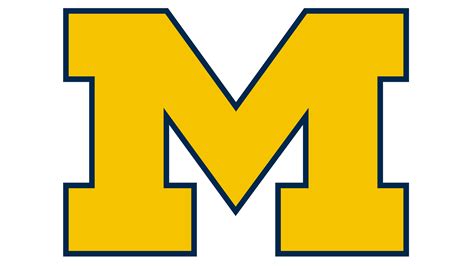
Uncovering The Iconic Michigan Wolverines Font
Uncovering the Iconic Michigan Wolverines Font
Hey guys, have you ever looked at the iconic maize and blue of the Michigan Wolverines and wondered, “What font is used for Michigan Wolverines’ branding?” It’s a question many fans and design enthusiasts ponder, and for good reason! The typography used by a sports team isn’t just a random choice; it’s a fundamental part of their brand identity, conveying power, tradition, and spirit. For the Wolverines, their typeface is as recognizable as the block ’M’ itself, playing a crucial role in shaping how we perceive this legendary institution. In this deep dive, we’re going to explore the fonts that define the Michigan Wolverines, from their primary wordmarks to the supporting typefaces that complete their visual story. We’ll chat about why these specific choices matter, how they contribute to the team’s enduring legacy, and even give you some tips on how to capture that undeniable Wolverine spirit in your own designs. So, grab your favorite maize and blue gear, and let’s uncover the secrets behind the iconic Michigan Wolverines font together!
Every time you see that bold, strong text associated with the University of Michigan, whether it’s on a jersey, a stadium banner, or their official website, you’re experiencing the deliberate power of typography. This isn’t just about reading words; it’s about feeling the weight of tradition, the strength of their athletic prowess, and the unwavering loyalty of their fan base. The Michigan Wolverines font system is meticulously crafted to evoke these very emotions. It’s a visual language that speaks volumes about the team’s identity, an identity steeped in history and success. We’re talking about more than just letters here; we’re talking about a significant piece of their visual heritage. So, let’s embark on this exciting journey to unravel the typographic tapestry that makes the Wolverines’ brand so distinctive and instantly recognizable. You’ll soon realize that understanding their font choices gives you a whole new appreciation for the effort that goes into creating such a powerful and cohesive brand identity, an identity that resonates deeply with millions of fans worldwide . This journey into their typography isn’t just for designers; it’s for anyone who loves the Wolverines and wants to understand the subtle yet profound elements that make their brand truly legendary. We’re going to break down the primary wordmarks, the secondary text, and even some clever alternatives you can use to capture that unmistakable Michigan vibe in your own personal projects. It’s all about celebrating the visual legacy that stands as tall and proud as the university itself.
The Core Identity: What Font Defines the Wolverines?
When we talk about the Michigan Wolverines font , we’re primarily referring to the highly distinctive typography used in their official wordmarks and the iconic block ’M’ logo. While many major collegiate and professional sports teams often utilize custom-designed typefaces for their primary branding – fonts that are exclusive to them and not readily available commercially – the Wolverines’ visual identity certainly gives us a clear style to analyze. The hallmark of the Wolverines’ primary typeface is its strong, blocky, and athletic appearance. This isn’t just any font; it’s a typeface that screams power, tradition, and unyielding determination, perfectly encapsulating the spirit of a Wolverine athlete. Think about the iconic football jerseys, the scoreboards at “The Big House,” or the university’s official merchandise; the font used for “MICHIGAN” and “WOLVERINES” is instantly recognizable, leaving a lasting impression on everyone who sees it. It embodies a sense of enduring strength and classic American collegiate aesthetics, a design philosophy that has been refined over many decades to represent excellence and heritage.
Often, the type of font employed for the primary wordmark is a heavy sans-serif or a bold slab-serif , characterized by its robust letterforms and a no-nonsense, straightforward design. These fonts are chosen for their exceptional readability, especially from a distance, which is crucial for stadium signage, television broadcasts, and quickly glimpsed merchandise. They project an aura of authority and reliability, qualities that are deeply embedded in the Michigan Wolverines’ athletic and academic reputation. The specific customization of these letterforms is what truly makes them unique to the Wolverines. You’ll notice subtle alterations in spacing, stroke width, and corner angles that give the letters a distinctive feel, distinguishing them from generic collegiate typefaces. This attention to detail ensures that their branding is not only strong but also unmistakably Michigan . The design principles behind this choice are rooted in a desire to convey tradition, athleticism, and a timeless quality. The font avoids frivolous adornments, focusing instead on clarity and impact, much like the disciplined approach of a Wolverines team on the field. It’s about projecting unwavering strength and a sense of history that few other institutions can match. This specific aesthetic has become synonymous with the University of Michigan, fostering a deep sense of pride and loyalty among its alumni and fan base. It’s more than just a font; it’s a visual anchor that connects past glories with future aspirations, truly defining what it means to be a Michigan Wolverine. The carefully crafted curves and strong lines of the official Michigan Wolverines font communicate a consistent message of excellence and steadfastness, creating a visual legacy that stands the test of time and continues to inspire generations of fans. This thoughtful design ensures that every piece of branding, from a helmet decal to a massive stadium graphic, powerfully reinforces the university’s esteemed image and its storied history in collegiate sports. It’s truly a masterclass in athletic branding, establishing a clear, strong, and enduring visual identity.
Beyond the Wordmark: Supporting Typefaces and Their Role
While the primary Michigan Wolverines font for their core wordmarks is undeniably the star of the show, it’s essential to remember that a comprehensive brand identity relies on a cohesive system of supporting typefaces. These additional fonts, guys, are vital for various applications, ranging from the university’s official website and marketing materials to program guides and everyday communications. They play a critical role in ensuring readability, maintaining brand consistency across different platforms, and complementing the boldness of the main athletic font without overshadowing it. Think about it: you wouldn’t want a super heavy, custom block font used for every single paragraph of text on a website, right? That would be a nightmare to read! Instead, these supporting typefaces are typically more conventional, highly legible fonts chosen for their versatility and ability to work harmoniously with the strong primary branding. They provide the necessary balance, allowing the iconic Wolverines’ look to shine while ensuring all other information is presented clearly and professionally.
For general body text and secondary headlines, the University of Michigan system often employs widely accessible and highly readable sans-serif fonts. Common choices in such branding guidelines might include industry standards like Roboto, Open Sans, Arial, or Helvetica . These fonts are preferred because of their clean lines, consistent spacing, and excellent readability across various screen sizes and print media. They offer a neutral yet professional aesthetic that supports the vibrant maize and blue branding without competing for attention. Imagine reading a news article about the Wolverines on their official site; the body text needs to be clear and unobtrusive, allowing you to focus on the content rather than struggling with an overly stylized font. These secondary fonts also extend to specific applications like player names on jerseys (though often a simplified version of the primary athletic font might be used for numbers and names), signage within campus facilities, and even detailed informational graphics. The careful selection of these complementary fonts ensures that every piece of communication, regardless of its purpose, feels authentically Michigan. They bridge the gap between the bold, impactful athletic identity and the academic, informational needs of a major university. This multi-layered approach to typography is a hallmark of sophisticated brand management, ensuring that the visual language of the Wolverines is both powerful and practical, creating a seamless experience for fans, students, and alumni alike. It’s all about making sure that the entire visual ecosystem works together, reinforcing the overarching brand message. The harmony between the Michigan Wolverines font (the bold, primary one) and these supporting typefaces is what truly elevates their brand, making it robust, adaptable, and instantly recognizable across countless touchpoints, from digital screens to print publications, always maintaining that distinctive maize and blue spirit that everyone loves and expects.
The Power of Typography in Sports Branding
Let’s get real, guys, typography isn’t just about making words look pretty; it’s a powerful, silent communicator that shapes perceptions and evokes emotions, especially in the high-stakes world of sports branding. For teams like the Michigan Wolverines, their font choices are incredibly strategic, serving as a cornerstone of their overall brand identity. The primary Michigan Wolverines font isn’t just letters; it’s a visual metaphor for the team’s values, history, and aspirations. When you see that bold, unwavering typeface, it instantly conjures feelings of strength, tradition, and excellence. This emotional connection is priceless in branding, fostering a deep sense of loyalty and pride among fans. A well-chosen typeface can scream “champions” or whisper “underdogs,” depending on the team’s narrative and desired image. For the Wolverines, it shouts legacy and unyielding spirit . Think about how different a team would feel if their logo was in a delicate script versus a heavy, collegiate block font; the entire perception shifts, right?
Typography contributes immensely to brand recognition . Just like the iconic maize and blue colors, the distinctive Michigan Wolverines font makes their brand instantly identifiable, even without seeing a logo or a mascot. This consistency across all touchpoints – jerseys, merchandise, stadium graphics, digital platforms – builds a strong, unified identity that reinforces the team’s presence and impact. It ensures that whether you’re watching a game, buying a hat, or visiting the university website, the visual experience is cohesive and unmistakably Michigan. This consistency isn’t just about aesthetics; it’s about building trust and familiarity. Fans come to expect that certain look, and it becomes part of their collective memory and emotional connection to the team. Furthermore, the strategic use of typography allows a team to convey specific values. The robust, no-nonsense look of the Wolverines’ primary font communicates discipline, resilience, and a storied history. It reflects the hard work and dedication that are hallmarks of their athletic programs. It speaks to a tradition of success and a commitment to excellence that resonates with generations of fans and alumni. It’s about more than just a font; it’s about a visual representation of their entire ethos. The power of typography in sports also extends to differentiating a team from its rivals. In a crowded landscape of competing universities and athletic programs, a unique and impactful font helps a team stand out. It becomes a signature element that contributes to their unique storytelling and market positioning. Ultimately, the Michigan Wolverines font system isn’t just a design detail; it’s a critical asset that helps forge powerful emotional bonds, ensures instant recognition, communicates core values, and sets the team apart, truly embodying the spirit and tradition of one of college sports’ most revered institutions. It helps to tell their story without uttering a single word, speaking volumes through its strong, proud, and instantly recognizable letterforms that resonate deeply with the vast Wolverine faithful around the globe.
Crafting Your Own Wolverine-Inspired Designs: Font Alternatives & Tips
Alright, folks, if you’re a designer, a student, or just a passionate fan looking to infuse that unmistakable Wolverines spirit into your own projects – maybe for a personal poster, a fan-made graphic, or a school assignment – you might be wondering, “What fonts can I use that capture the essence of the Michigan Wolverines font ?” Since official team fonts are often proprietary and not publicly available, the trick is to find commercially available alternatives that mimic the bold, strong, collegiate style. You want fonts that evoke that same sense of athletic tradition and academic excellence without infringing on any copyrights. Luckily, there are plenty of excellent typefaces that can help you achieve that maize and blue vibe, allowing you to create designs that feel authentically Michigan without directly copying their specific custom wordmark. It’s all about capturing the spirit and aesthetic, not just the exact letterforms, giving your designs that powerful, classic collegiate feel that resonates so strongly.
Here are some fantastic font alternatives and tips to get you started on your Wolverine-inspired design journey:
-
Collegiate and Athletic-Style Fonts : Look for fonts specifically designed with a collegiate or athletic aesthetic. Fonts like “College Block,” “Varsity Classic,” or “Sporting Grotesque” are excellent starting points. These often feature thick, blocky letterforms, sometimes with a slight slab serif or heavy sans-serif appearance, which is perfect for capturing that strong, academic-athletic feel. They are designed for impact and readability, much like what you see on sports jerseys and banners. The key is to find something that is bold and has a strong presence, commanding attention without being overly ornate or delicate. These typefaces immediately bring to mind the classic look of sports teams and universities, making them ideal for evoking the Michigan Wolverines font style in your personal projects.
-
Heavy Sans-Serifs : For a cleaner, yet equally impactful look, explore very bold and condensed sans-serif fonts . Fonts like “Impact” (though often overused, its blockiness is undeniable), “Bebas Neue,” or “Anton” can offer that robust, condensed feel. If you’re willing to invest a little, fonts like “Oswald” or “Montserrat Black” also provide a strong, clean presence. The goal here is to achieve a sense of density and power, mimicking the strength of the Wolverines’ branding. When selecting these, pay attention to the negative space within and between letters; a tight, controlled spacing will enhance the athletic feel you’re going for.
-
Slab Serifs with Character : While many of the Wolverines’ primary wordmarks lean sans-serif, some of their overall branding could also be inspired by strong slab serifs. Fonts like “Rockwell Extra Bold,” “Arvo Bold,” or “Bitter Heavy” can provide a grounded, traditional yet powerful feel. Slab serifs often convey a sense of gravitas and history, which perfectly aligns with the University of Michigan’s storied past and enduring legacy. These can be particularly effective for headlines or sub-headers where you want to emphasize tradition and solid foundations, complementing the primary Michigan Wolverines font style you’re aiming to emulate.
-
Customization is Key : Remember, the official Michigan Wolverines font is often custom. You can take a standard block font and customize it slightly. Play with tracking (letter spacing) to make it tighter and more aggressive. Experiment with stroking or outlining the letters to give them a bolder, more defined edge. Even subtle modifications can make a generic font look more unique and tailored to your Wolverine-inspired design. Don’t be afraid to tweak the corners or introduce minor distortions to create that custom feel, but always keep readability in mind.
-
Color Palette is Crucial : Don’t forget the power of color! Even the most perfect font won’t scream “Michigan” without the iconic Maize and Blue . Use specific hex codes for these colors to ensure accuracy (e.g., Maize: #FFCB05, Blue: #00274C). The color combination instantly elevates any font choice to resonate with the Wolverines’ brand identity, making your design feel complete and authentic, even if your font isn’t an exact match for the Michigan Wolverines font .
-
Tools for Font Identification : If you ever see a font you like and want to identify it, tools like “WhatTheFont!” by MyFonts or “Font Squirrel’s Font Identifier” can be incredibly helpful. You upload an image of the text, and the tool suggests similar fonts, which can be a great starting point for finding your own Wolverine-esque typography. These resources are fantastic for expanding your font library and discovering new typefaces that fit the aesthetic you’re aiming for.
By combining these font alternatives with careful attention to spacing, customization, and the iconic maize and blue color scheme, you can craft designs that beautifully pay homage to the spirit and visual identity of the Michigan Wolverines. It’s about creativity and capturing the essence of their powerful brand, allowing you to share your passion in a visually compelling way.
The Enduring Legacy of Michigan’s Visual Identity
So, as we wrap up our deep dive, it’s clear that the Michigan Wolverines font system is far more than just a collection of letters; it’s a powerful, enduring symbol of one of the most storied athletic programs in collegiate history. From the bold, custom typefaces that define their iconic wordmarks to the carefully chosen supporting fonts that ensure readability across all platforms, every typographic decision contributes to a cohesive and unmistakable visual identity. This thoughtful approach to design isn’t accidental; it’s a testament to the university’s commitment to excellence, tradition, and maintaining a strong, unified brand presence that resonates deeply with millions worldwide. The font choices reinforce the values of strength, discipline, and historical achievement that are synonymous with being a Wolverine, creating an emotional connection that transcends mere aesthetics.
This robust visual language ensures that whether you’re watching a game, walking across campus, or sporting some gear, you’re instantly connected to the rich legacy and unwavering spirit of the Michigan Wolverines. The consistency in their typography, much like their iconic maize and blue colors, has become a cornerstone of their brand recognition , making them instantly identifiable in a crowded sports landscape. It’s a visual shorthand that communicates power, prestige, and a fierce competitive spirit. The enduring impact of their chosen fonts lies in their ability to evoke a sense of tradition and modernity simultaneously – strong enough to stand the test of time, yet adaptable enough to maintain relevance in today’s fast-paced world. So, the next time you see that distinctive text, remember that you’re not just looking at a font; you’re seeing a carefully crafted piece of history, an integral part of the Wolverine mystique, designed to inspire pride and loyalty in every fan. It’s truly a masterclass in how typography can elevate a brand from being merely recognized to being deeply cherished and celebrated. Go Blue!